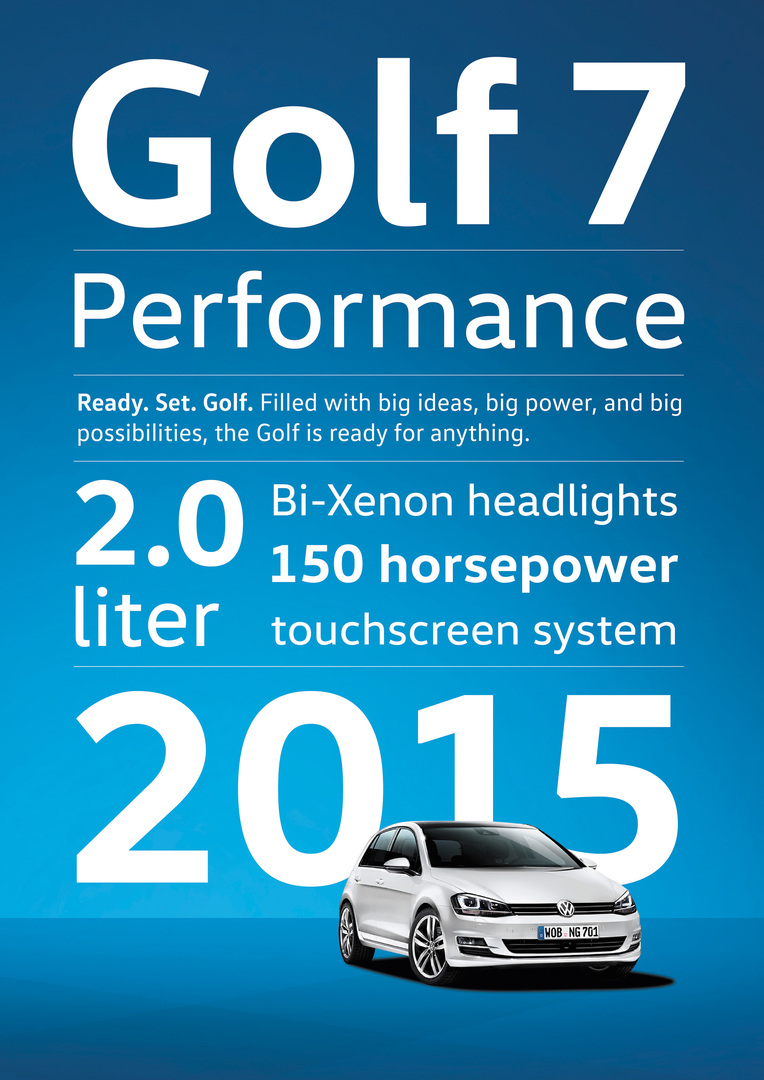
Volkswagen Corporate Typeface
Ongoing digitalisation and globalisation place new demands on maintaining a holistic brand image. In response to these challenges, Volkswagen launched an exclusive typeface with two variants: “Volkswagen Head” and “Volkswagen Text”. The typeface family radiates a dynamic, modern touch, creating an optimal fit between the look of the type and the brand character. The new typeface blends angles, edges and curves to create a visual bridge and an aesthetically pleasing flow. In addition, the typeface’s technical standards, such as spacing, legibility, multilingual formats and cross-media capabilities, make it suitable for digital and mobile media. It is designed for use in all communication media, as well as in vehicles.